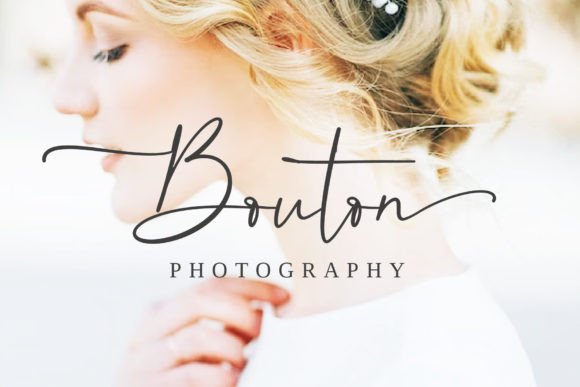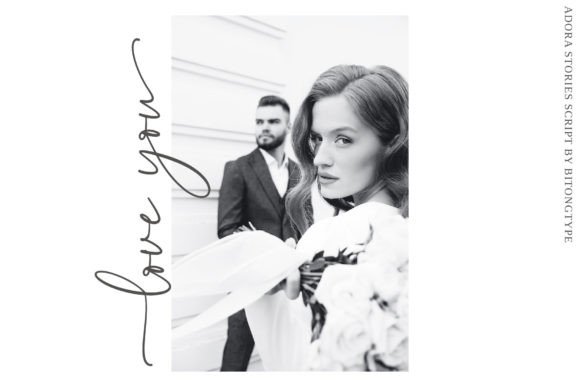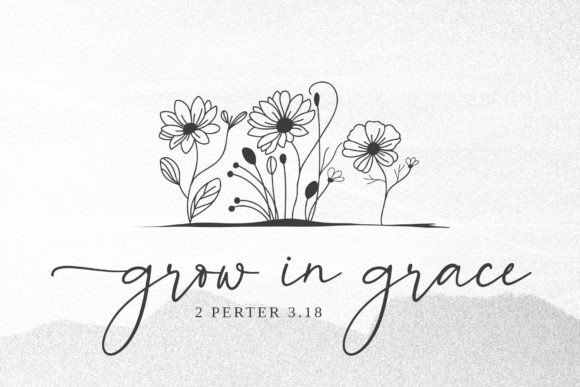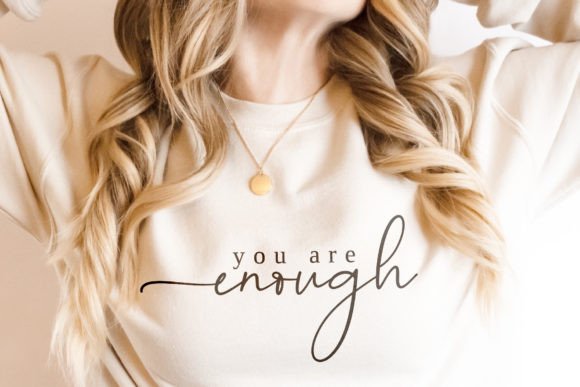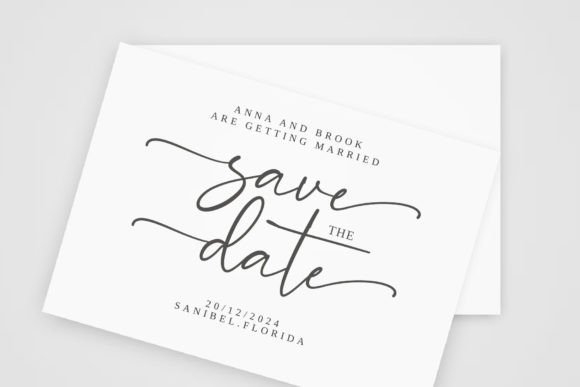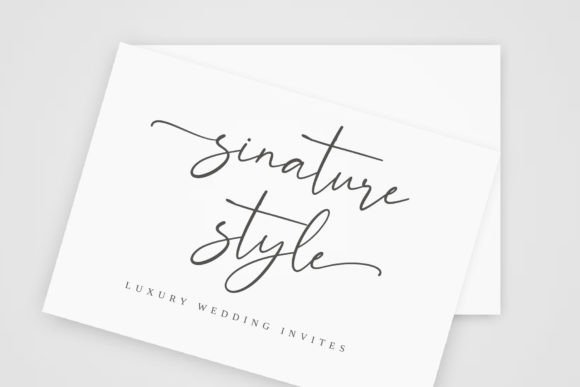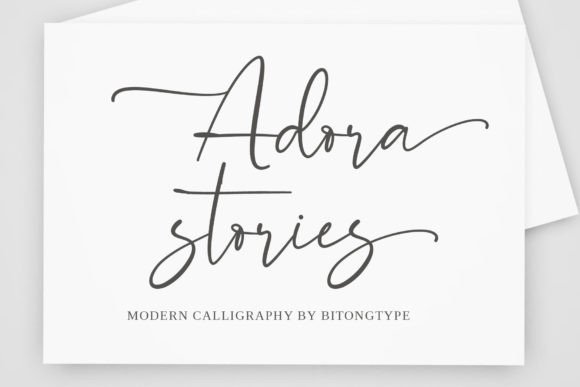
Introducing Adora Stories Font: Elevate Your Designs with Elegance and Sophistication
In the world of digital design, fonts play a pivotal role in conveying messages, evoking emotions, and creating lasting impressions. For designers, crafters, and anyone looking to add a touch of elegance to their projects, Adora Stories Font is a game-changer. This stylish modern calligraphy font, with its casual chic flair, is perfect for a wide range of applications, from branding and wedding invites to cards and even red wine labels.
What Makes Adora Stories Font Stand Out?
Adora Stories Font is not just another addition to the vast collection of digital fonts available today. It boasts several features that make it uniquely appealing to designers and crafters alike:
- Stylish Modern Calligraphy: With its roots in traditional calligraphy, Adora Stories brings a modern twist, making it fresh and contemporary. Its stylish appearance can instantly elevate the aesthetic of any design.
- Casual Chic Flair: The font exudes a sense of casual elegance, making it versatile for both formal and semi-formal projects. Whether you’re designing wedding invitations or crafting a logo for a boutique brand, Adora Stories fits right in.
- PUA Encoding: One of the most significant advantages of Adora Stories Font is its PUA (Private Use Area) encoding. This feature allows users to access all the glyphs and swashes easily, providing greater flexibility and creativity in design. With PUA encoding, you can unlock the full potential of the font, making your designs more dynamic and engaging.
The versatility of Adora Stories Font makes it an excellent choice for a variety of design projects:
- Branding: Create a lasting impression with a font that speaks elegance and sophistication. Adora Stories can help brands stand out, especially those in the luxury, fashion, and lifestyle sectors.
- Wedding Invites and Cards: Add a touch of romance and class to wedding invitations, thank you cards, and other stationery with this beautiful calligraphy font.
- Red Wine Labels: For wineries and wine brands looking to add a sophisticated touch to their labels, Adora Stories offers a stylish solution that can convey quality and luxury.
Why Choose Adora Stories Font?
With so many fonts available, why should Adora Stories be your go-to choice? Here are a few compelling reasons:
- Ease of Use: Thanks to its PUA encoding, designers can easily access and use the various glyphs and swashes, making the design process smoother and more efficient.
- Unique Designs: The font’s unique calligraphy style ensures that your designs stand out from the crowd. You can create distinctive and memorable visuals that capture the essence of your brand or event.
- High Versatility: Whether you’re working on digital projects or print materials, Adora Stories Font adapts beautifully, ensuring consistency and quality across different mediums.
How to Make the Most of Adora Stories Font
To truly leverage the potential of Adora Stories Font, consider the following tips:
- Experiment with Swashes: The PUA encoding unlocks a variety of swashes that can add a decorative touch to your designs. Experiment with different combinations to find the perfect look.
- Pair it Wisely: While Adora Stories Font is stunning on its own, pairing it with complementary fonts can create visually appealing contrasts. Look for fonts that offer a good balance of modernity and readability.
- Play with Colors: The elegance of Adora Stories Font can be further enhanced with the right color schemes. Consider soft pastels for a romantic look or metallic tones for a luxurious feel.
Adora Stories Font is more than just a stylish addition to your font collection; it’s a tool that can transform your designs, adding a layer of elegance and sophistication. Whether you’re a professional designer or a crafting enthusiast, this modern calligraphy font offers endless possibilities for creativity and expression. With its casual chic flair, PUA encoding, and versatility, Adora Stories Font is poised to become your new favorite go-to for all your design needs.